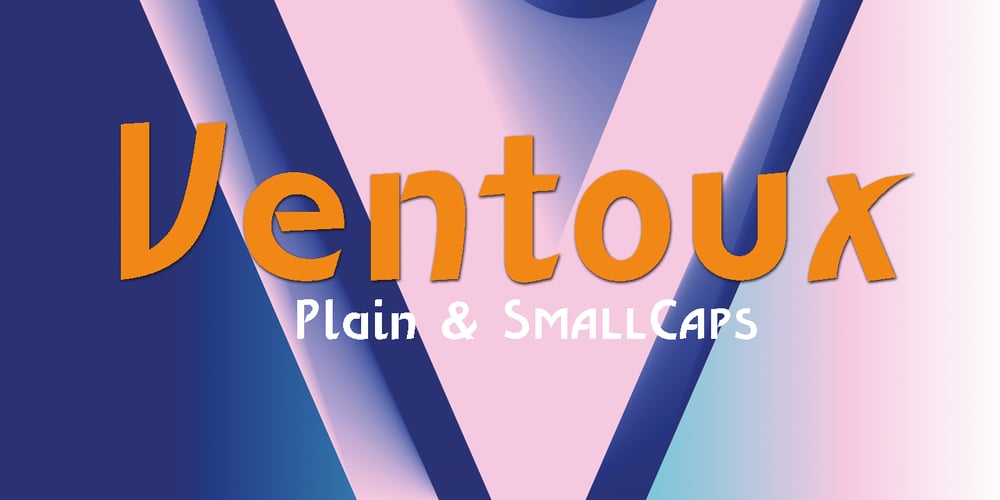
Ventoux
Ventoux font
Ventoux Font Family was designed by Gert Wiescher and published by Wiescher Design. Ventoux contains 2 styles and family package options. The highest and windiest mountain of Provençe is the Mont Ventoux. That is where I saw a pretty windy signpost in a very windy typeface that inspired me to design Ventoux. I recently added a Small-Caps style to it and overhauled the font a little bit without destroying its shaky appearance. Your not so windy Gert Wiescher